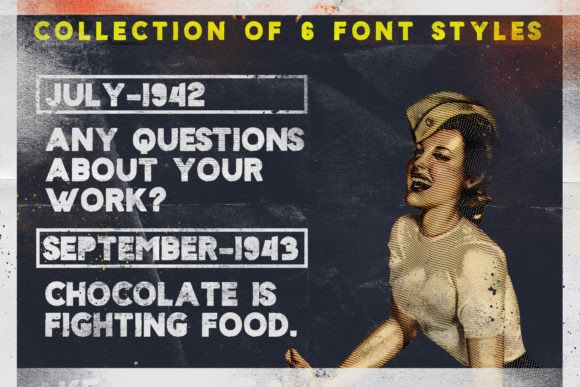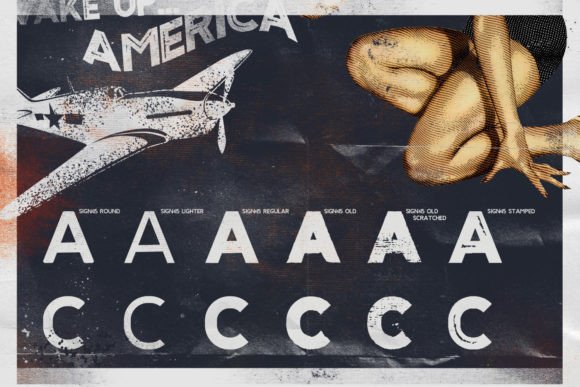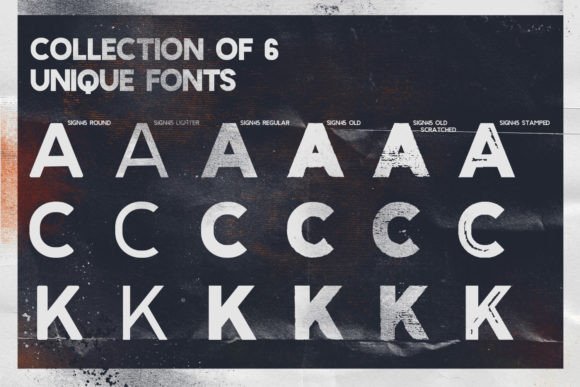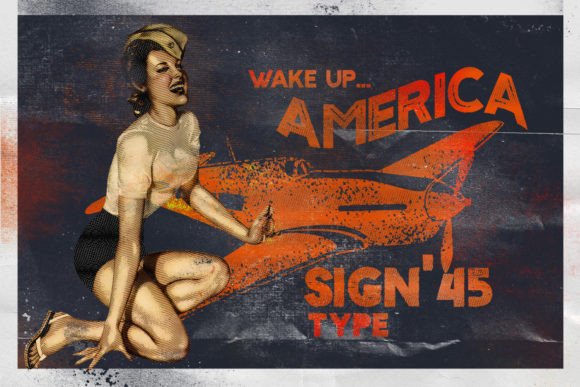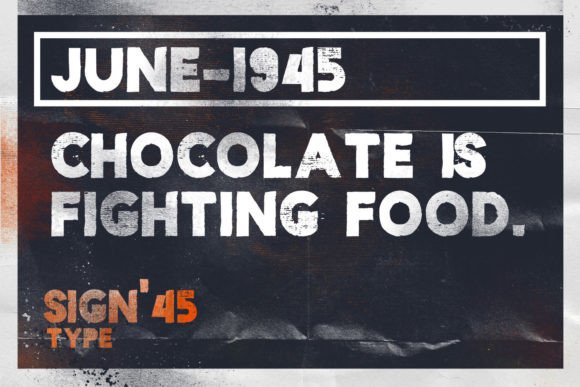
Introduction to Sign 45 Font
With Sign ’45 Typeface you can make it easier to convey the message in your design.
Use for awesome display, labeling, clothing, movie screen, poster, movie title, gigs, album covers, logos, and much more The font has 6 styles and it is ideal for retro and vintage projects, from clear designs to rough look designs.